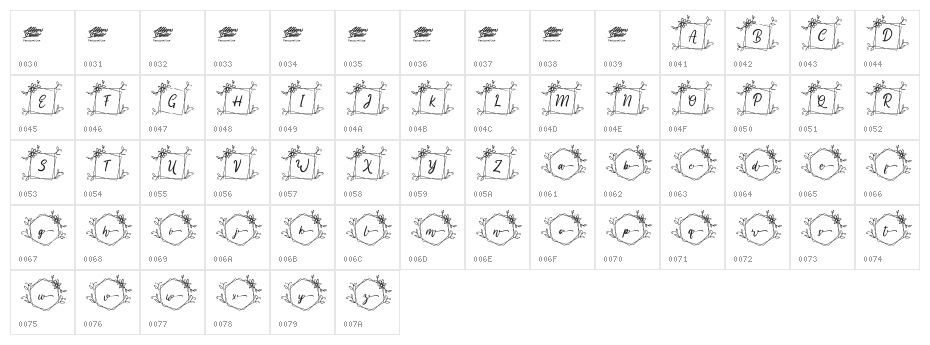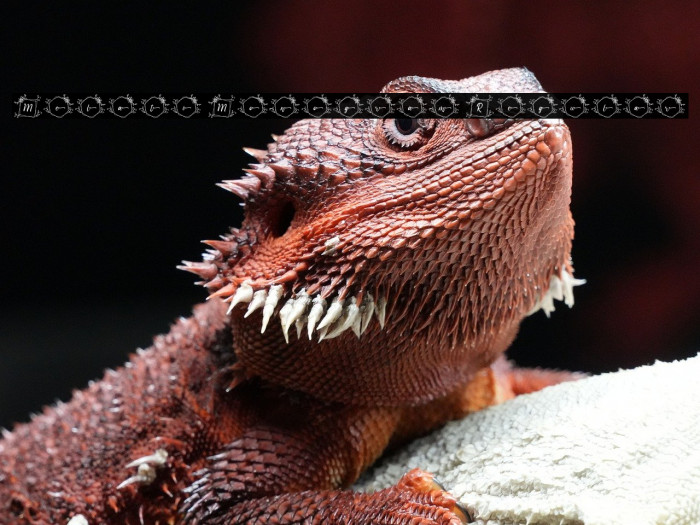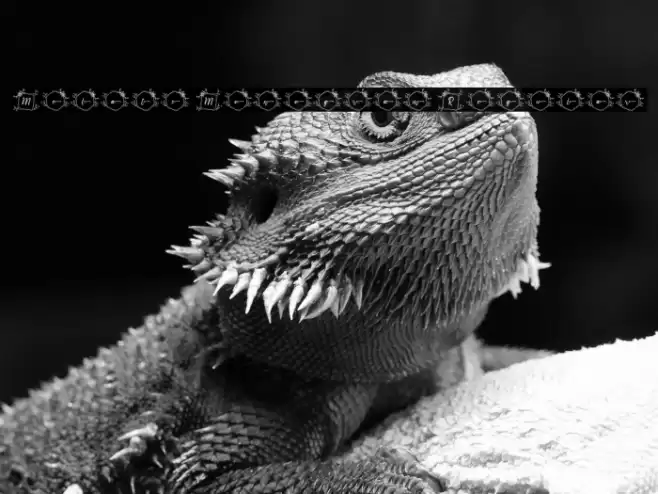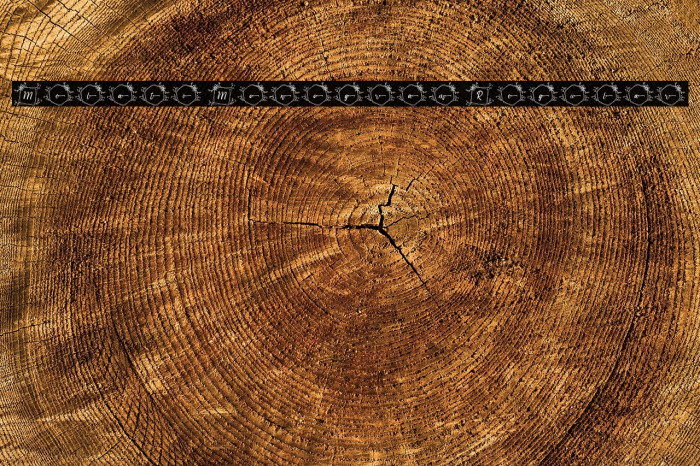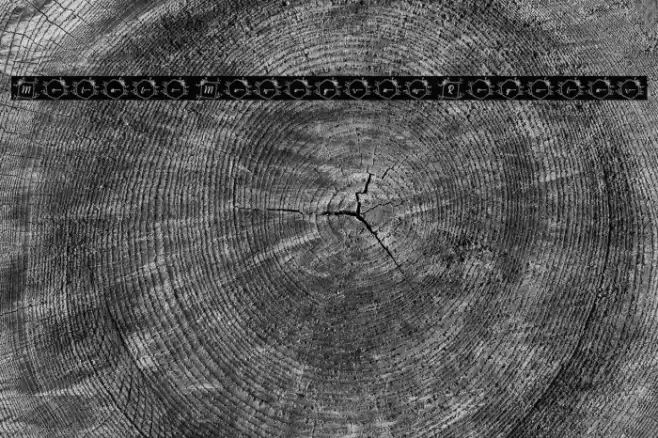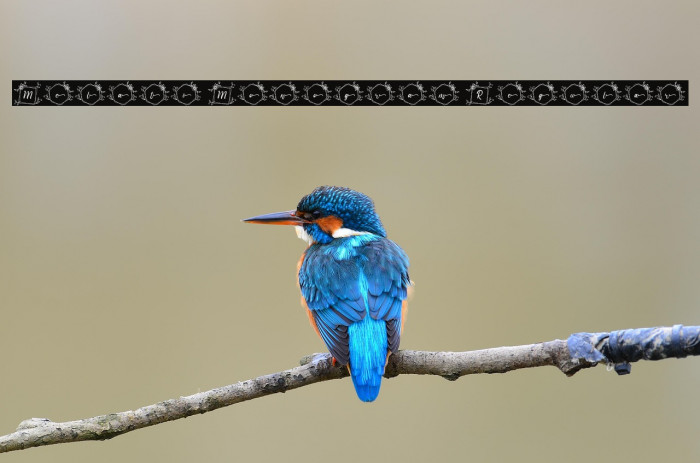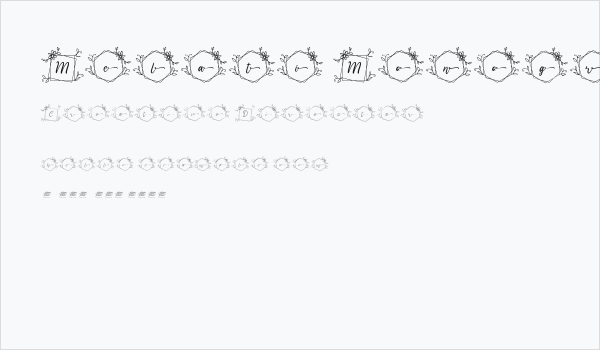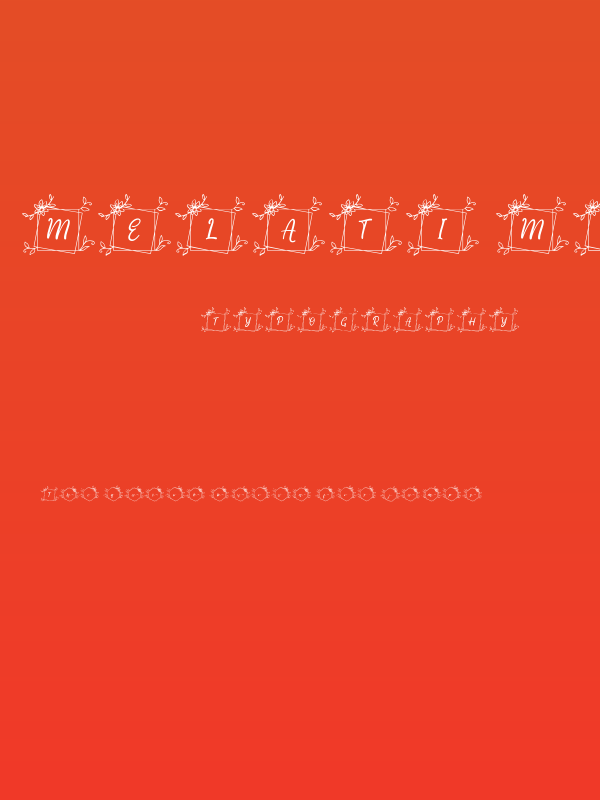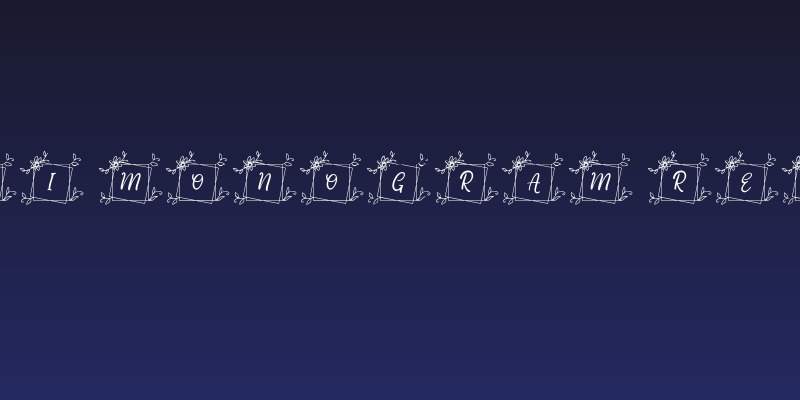
Melati Monogram Regular Font
Melati Monogram Regular Description
This font features an elegant and decorative style, with each character enclosed in a delicate floral frame. The uppercase letters are bold and distinct, while the lowercase letters maintain a graceful flow. The intricate floral designs add a touch of sophistication and charm, making it ideal for projects that require a refined and artistic touch. The characters are well-spaced, ensuring readability while maintaining the decorative elements. This font is perfect for creating monograms, wedding invitations, or any design that seeks to convey elegance and beauty.
| Use Case | Logos, Invitations, Decorative Text |
| Proposed Projects | Monograms, wedding invitations, greeting cards, luxury branding, and decorative prints. |